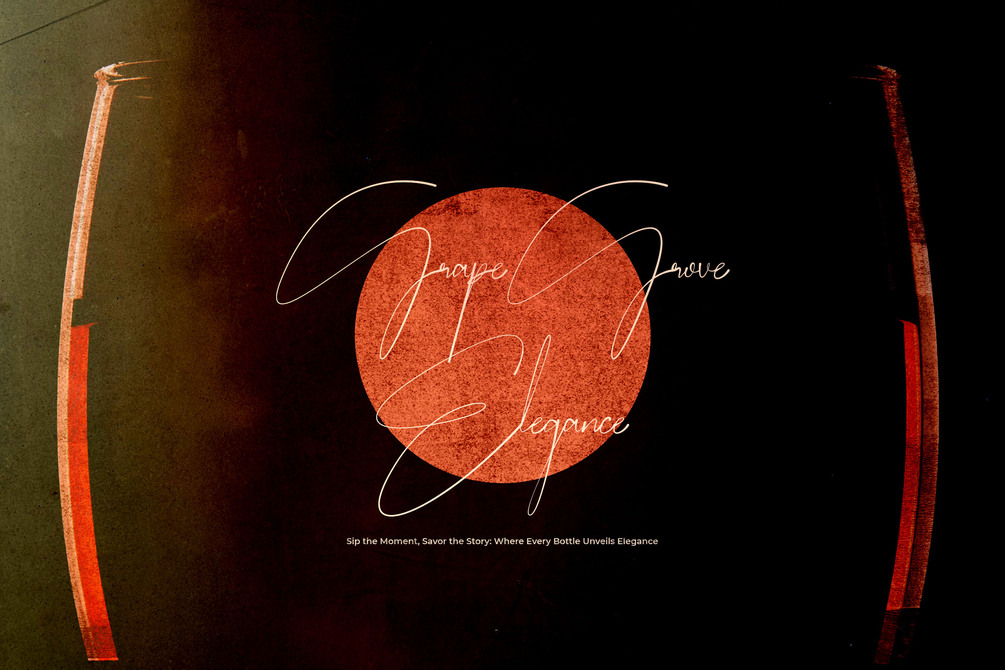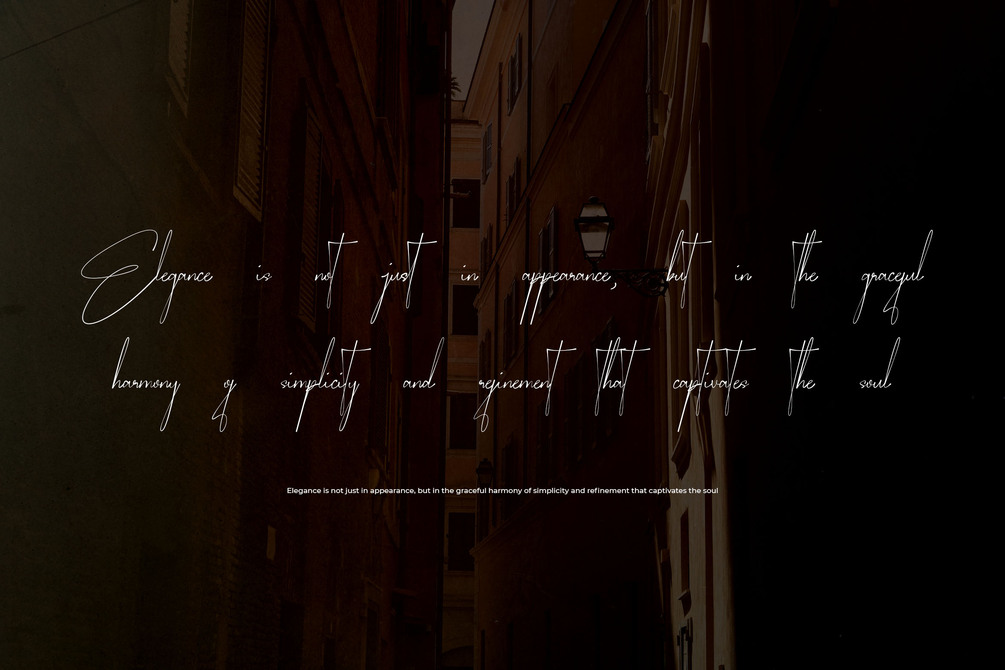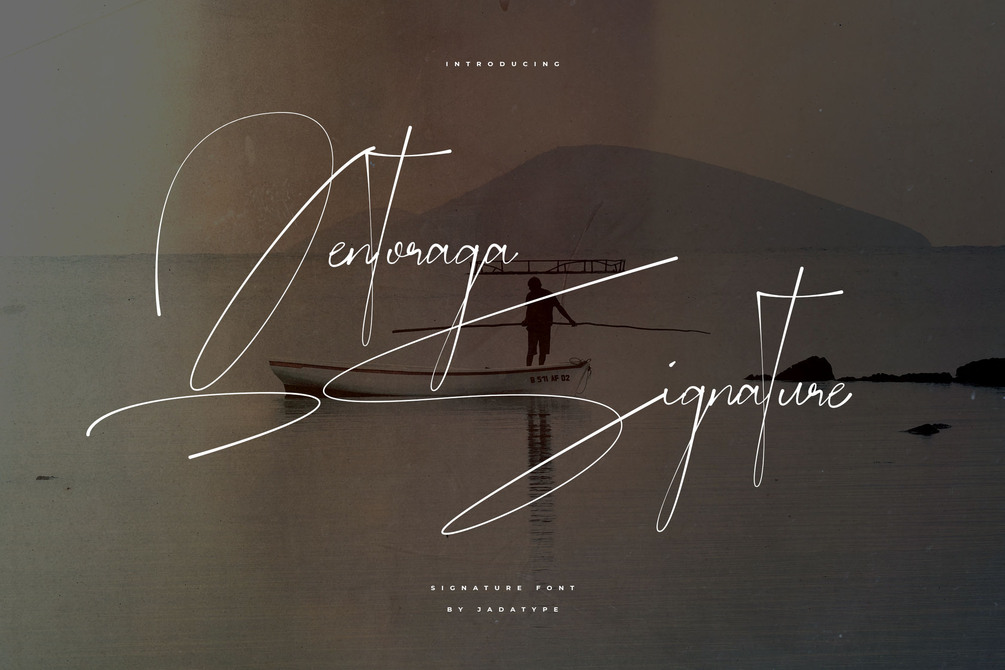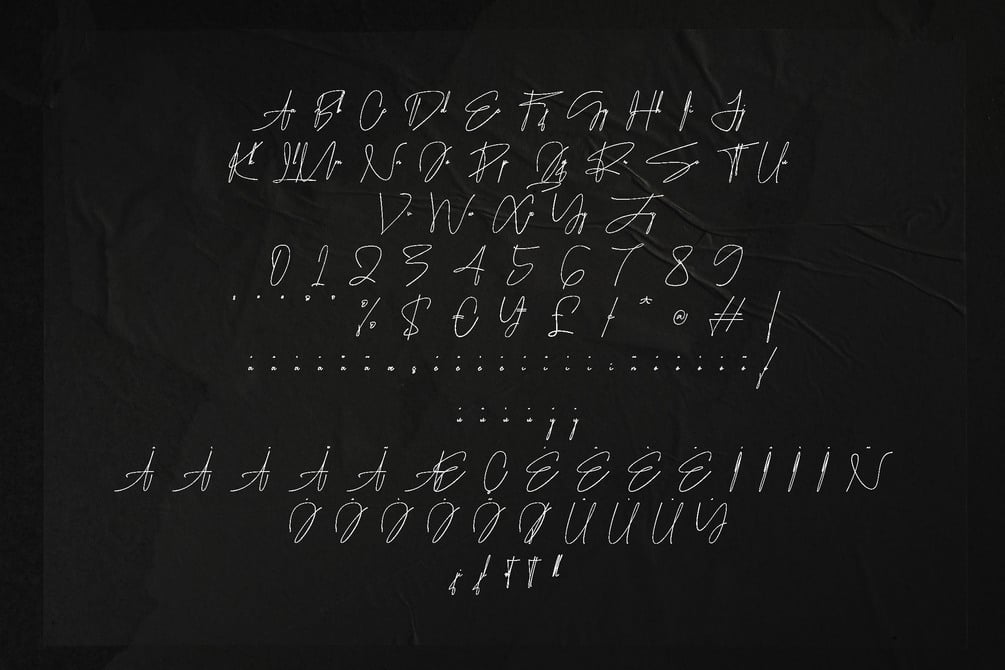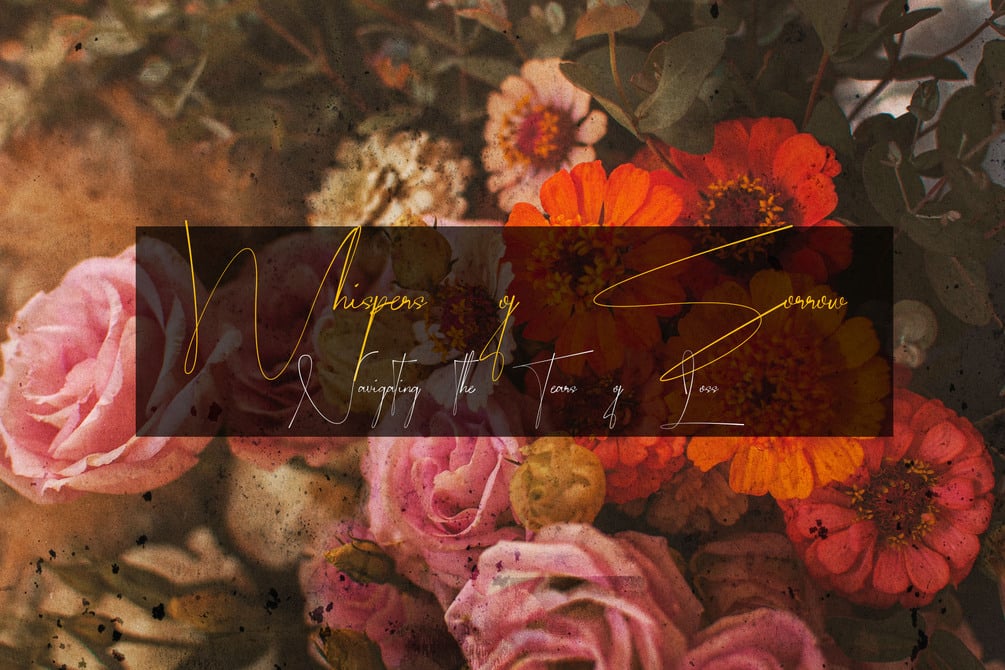
Qentoraga Font
Qentoraga is a script font that comes with a signature style. suitable for product, branding, social media, and so on. contains standard English letters, numbers, punctuation, and several accents that support multilingualism.
• Monoline and Signature Version